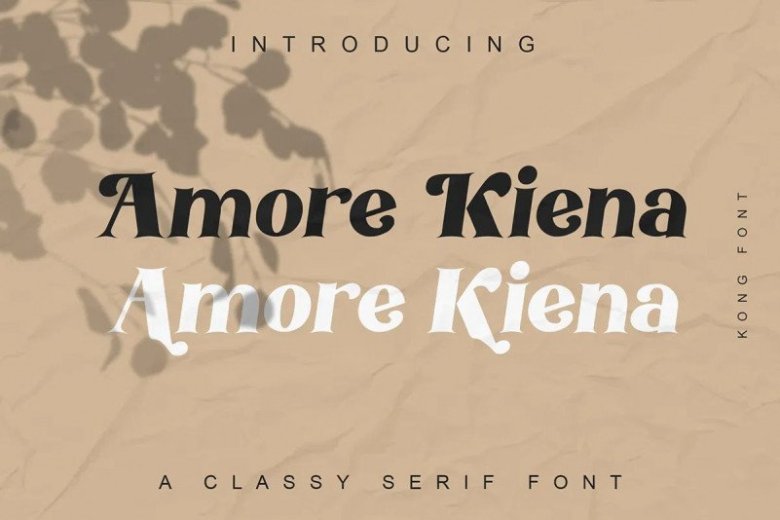
Amore Kiena Font
Introducing Amore Kiena Serif Font is a font display is made by hand, inspired by classic posters. Amore Kiena comes with uppercase, lowercase, numerals, punctuations and so many variations on each characters include opentype alternates, common ligatures and also additional swash to let you customise your designs. Perfect to use for Logotype, Letterhead, Poster, Apparel Design, Label and etc.